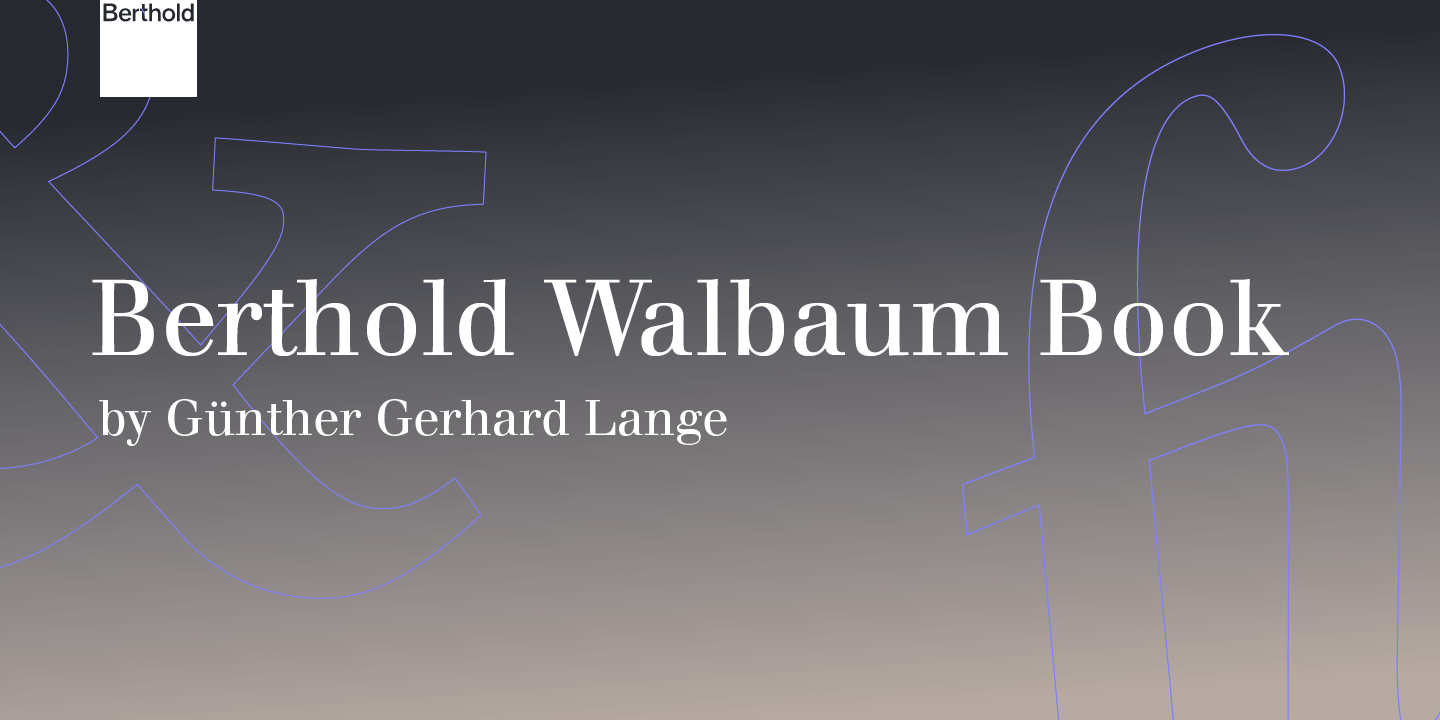
The Berthold Walbaum Book Font is an exquisitely refined and highly legible serif typeface, representing the pinnacle of the "modern" style typefaces from the early 19th century. Imagine its delicate yet sharp forms gracing the pages of classic literature, adding an air of intellectual rigor to academic publications, or lending timeless sophistication to high-end branding for cultural institutions. Its high contrast, crisp serifs, and elegant proportions make it an excellent choice for fine printing, sophisticated editorial design, luxurious invitations, and any content where clarity, precision, and understated beauty are paramount. Berthold Walbaum Book Font delivers with its unwavering quality, ensuring your message is conveyed with supreme legibility and a classic, distinguished aesthetic that stands the test of time.
What makes Berthold Walbaum Book Font so exciting is its masterful blend of historical elegance and exceptional functionality. Designed by Justus Erich Walbaum, it represents a peak of transitional and modern type design, offering a type that is both aesthetically beautiful and remarkably readable. It provides designers with the ability to infuse their projects with a deep sense of heritage and refined sophistication, while maintaining outstanding legibility across various print and digital mediums. It’s more than just a typeface; it’s a design cornerstone that provides a foundation of understated luxury and intellectual depth, making it a favorite among typographers and graphic designers who value precision, classic beauty, and a commitment to impeccable text setting.
The Berthold Walbaum Book Font family is typically part of a comprehensive type system, offering a range of weights and styles to provide extensive typographic control, particularly optimized for continuous text. Beyond the foundational Berthold Walbaum Book Regular, the family often includes corresponding Berthold Walbaum Book Italic for emphasis, and various weights like Berthold Walbaum Book Medium, Berthold Walbaum Book Bold, and potentially even lighter or heavier display versions. Professional sets often feature an extensive character set, ligatures, small caps, and a variety of numeral styles (e.g., old-style figures, lining figures), providing immense flexibility for sophisticated typesetting and complex editorial layouts. These diverse family members ensure that designers can create intricate and harmonious typographic systems, maintaining a consistent and elegant aesthetic from detailed body text to refined headlines.